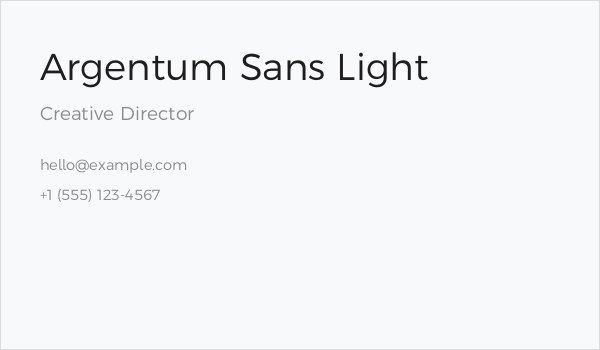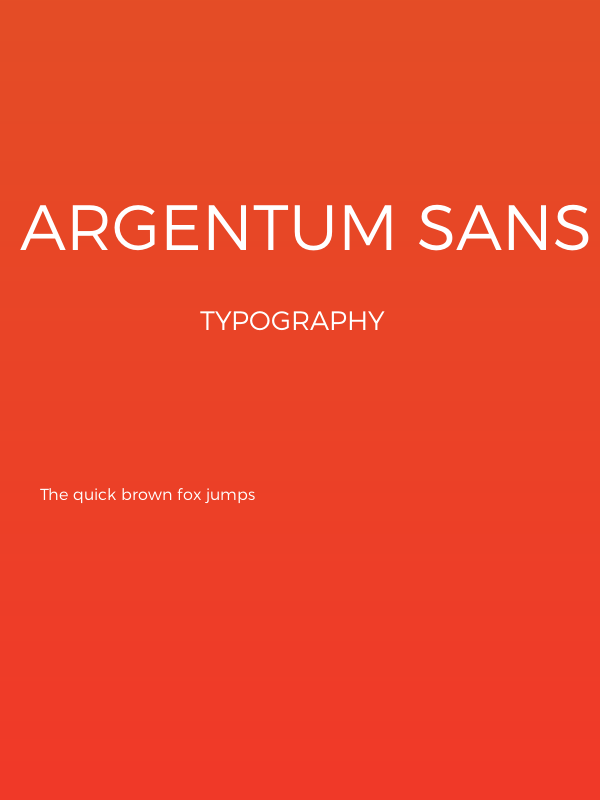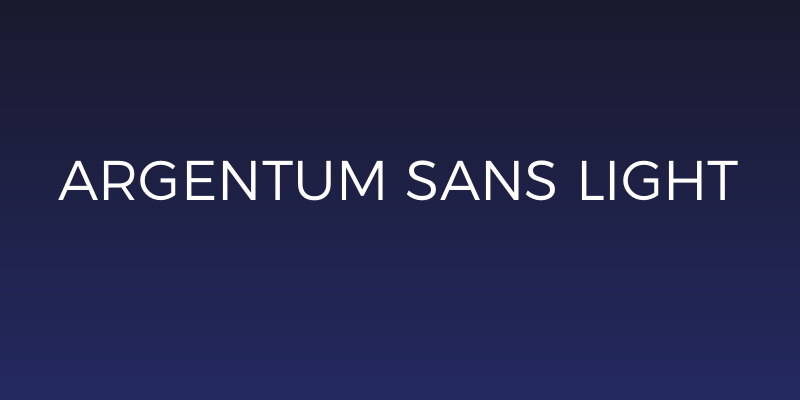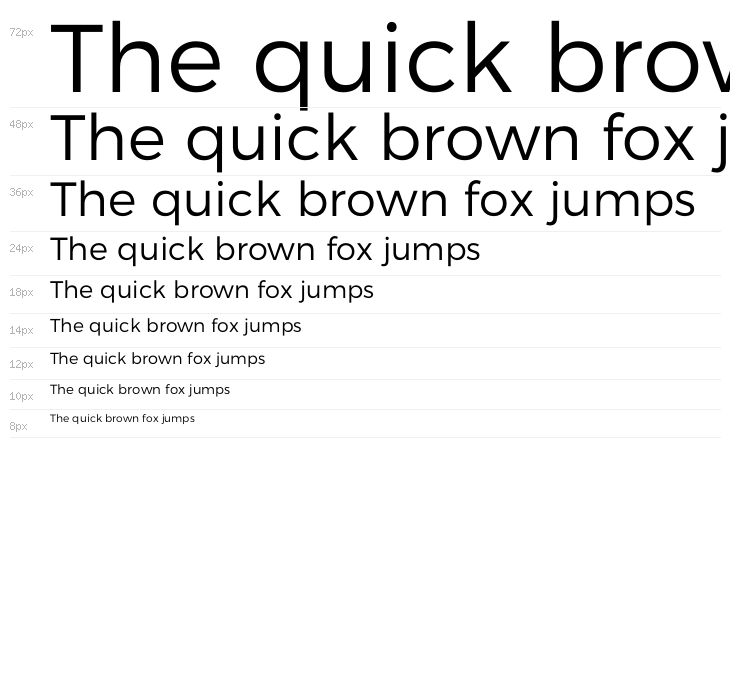
Argentum Sans Light Font
Argentum Sans Light Description
This font presents a clean and modern aesthetic with a sans-serif style, characterized by its light weight and uniform stroke width. The characters are well-proportioned, offering a harmonious balance between height and width. The design is minimalistic, with smooth curves and straight lines that enhance readability. The uppercase letters are bold and assertive, while the lowercase letters maintain a friendly and approachable appearance. Numbers and special characters are crafted with the same attention to detail, ensuring consistency across all elements.
| Proposed Projects | Ideal for digital interfaces, branding, and editorial design where clarity and modernity are essential. |